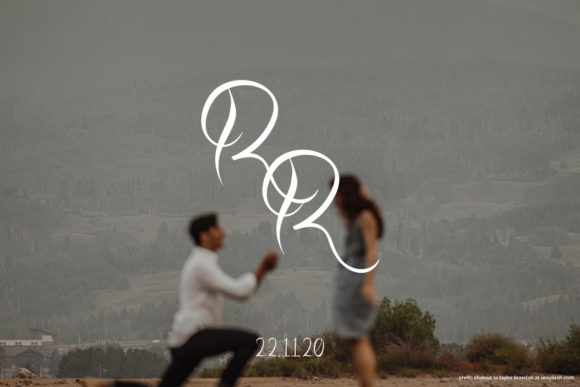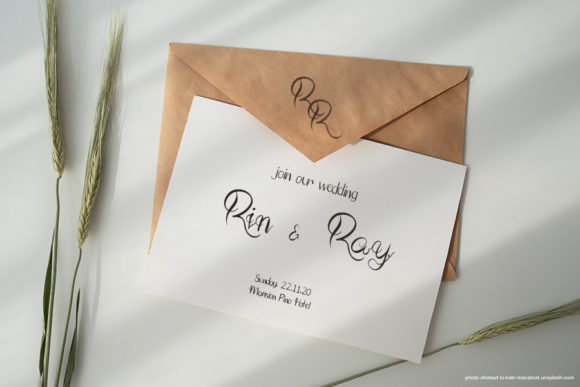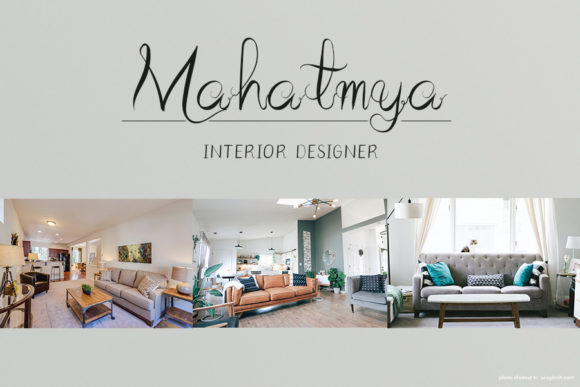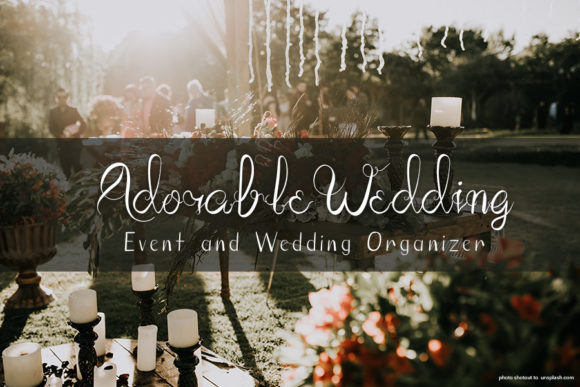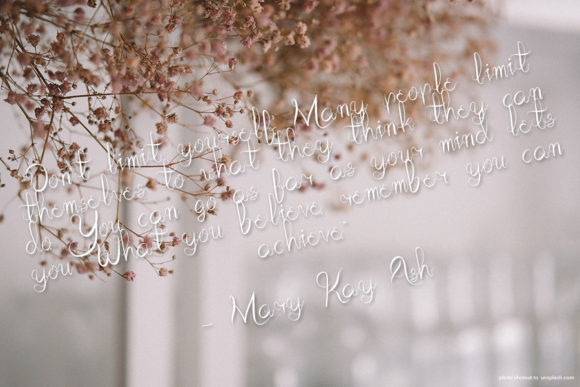
About Lovely Day Font
Lovely Day is a refined and timeless handwritten font. It is the best choice for creating eye-catching logos, branding, and quotes. Every letter has a unique and beautiful touch, which will make your designs come alive!